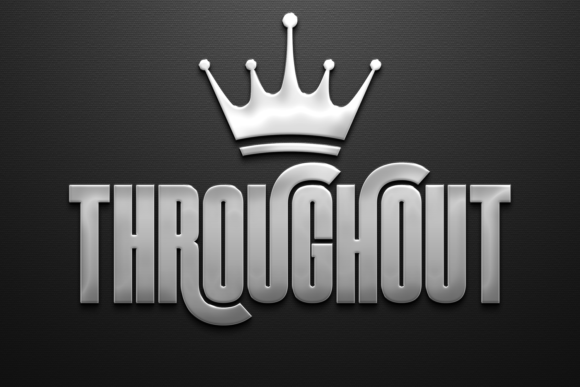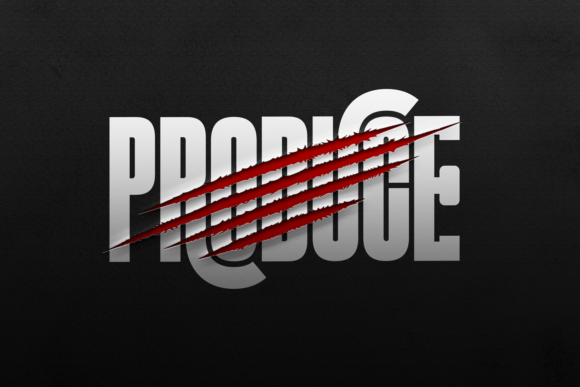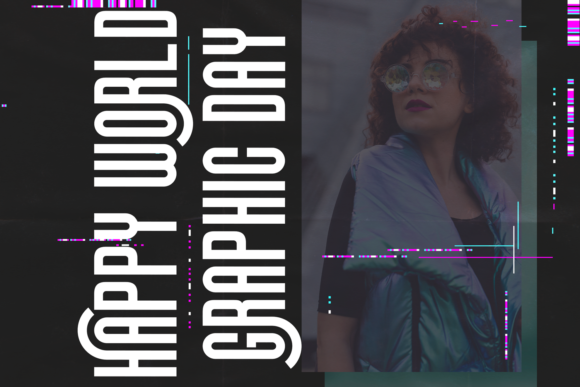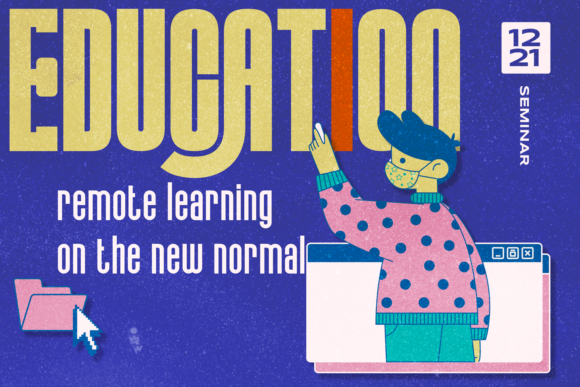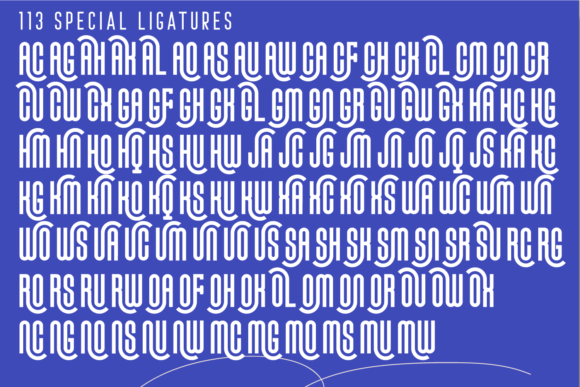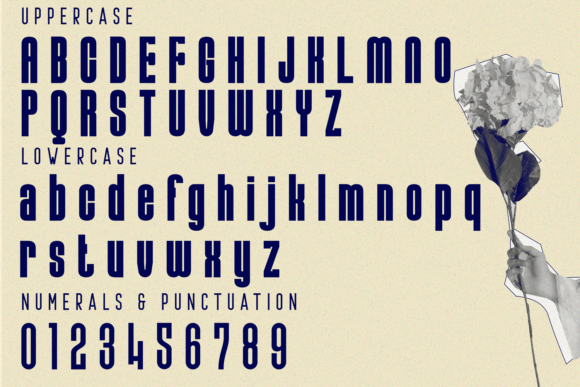
Introduction to Muscular Strength Font
Muscular Strength is an elegant, uniquely designed sans serif font.
It is PUA encoded which means you can access all of the glyphs and swashes with ease Fall in love with its incredibly versatile style and use it to create spectacular designs.